As a designer, I’ve always believed that script fonts are more than just letterforms — they are emotion, movement, and personality captured in typography. Every curve, loop, and connection tells a story, and that’s exactly why script fonts hold such a special place in my creative process.
Script fonts are inspired by natural handwriting, calligraphy, and hand-lettering, which makes them feel human, expressive, and alive. Unlike rigid or mechanical typefaces, scripts carry warmth and intention. They can feel romantic, playful, elegant, nostalgic, or modern — all depending on how they’re drawn and used. When I design or choose a script font, I’m not just thinking about readability; I’m thinking about mood, rhythm, and how the letters “dance” together on the page.
One of the greatest strengths of script fonts is their versatility. A soft handwritten script can instantly make a design feel personal and approachable, perfect for branding, social media quotes, packaging, or small businesses that want a friendly, authentic voice. More refined calligraphy-style scripts, with flowing strokes and graceful connections, bring elegance and sophistication — ideal for wedding invitations, luxury logos, beauty brands, and premium product designs.
Script fonts also shine in storytelling. They naturally draw the eye and create a sense of motion, which makes them excellent for headlines, signatures, logos, and decorative text. Even a single word written in a well-crafted script font can become the focal point of a design. That’s why I often use scripts to add emphasis, emotion, or a handcrafted touch to otherwise minimal layouts.
The Beauty of Script Fonts
1. Magic Alphabet Font
Magic Alphabet is a charming handwritten font filled with playful warmth and heartfelt character. Every letter, symbol, and space is crafted with care, creating a whimsical and inviting aesthetic that instantly enhances any design. Its soft, friendly style makes it ideal for creative products such as tote bags, hoodies, mugs, pouches, phone cases, and decorative items. Designed with makers and artisans in mind, Magic Alphabet adds a joyful, magical touch to every project, helping your creations feel personal, expressive, and universally appealing.
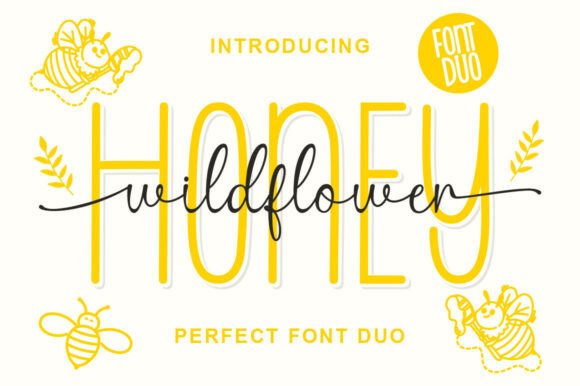
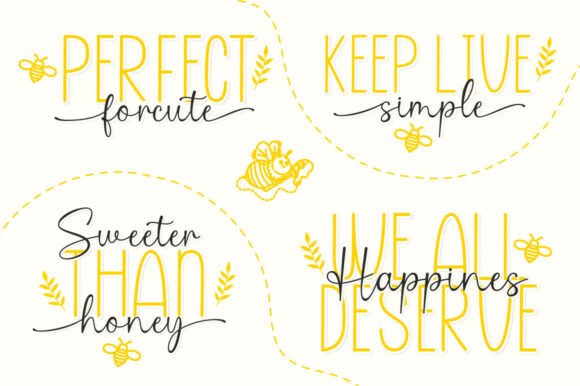
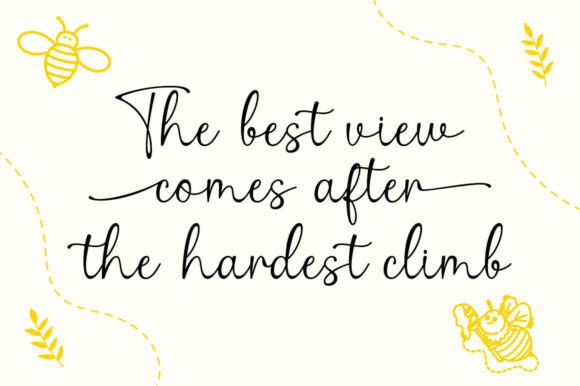
2. Wild Flower Honey Duo Font
Honey Wildflower is a joyful and well-balanced font duo that blends modern simplicity with elegant handwritten charm. The Honey font features tall, clean, rounded sans-serif letters that feel bright, friendly, and approachable — perfect for headlines, quotes, and branding. The Wildflower script adds a soft, flowing, hand-lettered feel with graceful curves and natural connections. Together, they create a harmonious and uplifting combination ideal for logos, invitations, packaging, social media graphics, and DIY projects. Sweet, modern, and full of personality, this duo makes every design bloom.
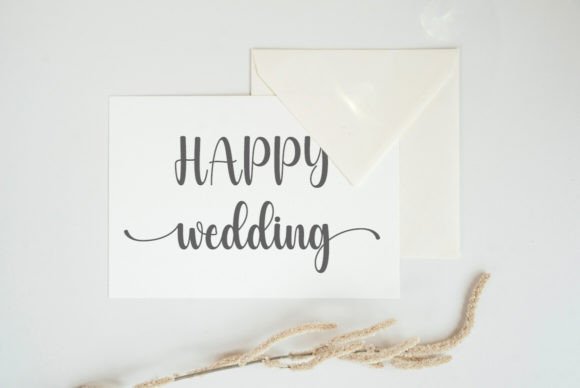
3. Lucky Font
Lucky is a delicate and elegant handwritten typeface designed to bring softness and sophistication to your work. Its graceful strokes and natural flow make it perfect for logos, branding, social media posts, advertisements, business cards, wedding invitations, and product designs. Fully PUA-encoded, Lucky allows easy access to all glyphs and alternates, giving you creative freedom without extra tools. This font adds a subtle charm and refined personality to any project.
4. About Heart Font
About Heart is a chic calligraphy font featuring beautifully connected heart elements and a romantic handwritten style. With its loving touch and timeless elegance, it’s perfect for wedding designs, romantic branding, social media graphics, invitations, and heartfelt creative projects. Its distinctive letterforms create an emotional connection, helping your designs feel warm, expressive, and memorable. Fall in love with its unique charm and create truly spectacular visuals.
5. Cupid’s Candies Font
Cupid’s Candies is a playful and romantic font created especially for Valentine’s Day and wedding projects. Sweet, decorative, and full of love, it’s perfect for Valentine cards, romantic invitations, party decor, crafts, and gift designs. This font brings a cheerful, affectionate mood to any project, making it ideal for celebrating love, relationships, and special moments with a fun and charming style.
As a designer, I see script fonts as the soul of typography. They carry emotion, movement, and personality in a way no other font style can. Script fonts transform simple words into expressive statements, allowing designs to feel personal, warm, and memorable. Whether soft and playful or elegant and refined, they have the unique ability to communicate feeling at first glance.
Script fonts bring balance to modern design. In a world dominated by clean lines and minimal layouts, scripts reintroduce the human touch. They remind us of handwriting, creativity, and intention — qualities that audiences instinctively trust and connect with. This is why script fonts are so powerful in branding, packaging, invitations, and digital content: they create emotional resonance, not just visual appeal.
A well-crafted script font is timeless. Trends may evolve, but the desire for authenticity never fades. High-quality script fonts, especially those with alternates and natural letter connections, give designers endless creative flexibility while keeping designs fresh and distinctive. Even a single word set in the right script font can define an entire visual identity.
Ultimately, script fonts are not just decorative tools — they are storytellers. They help designers express mood, elevate messages, and create meaningful visual experiences. When used thoughtfully, script fonts turn designs into moments people remember. That enduring emotional impact is what makes script fonts an essential and irreplaceable part of any designer’s toolkit.